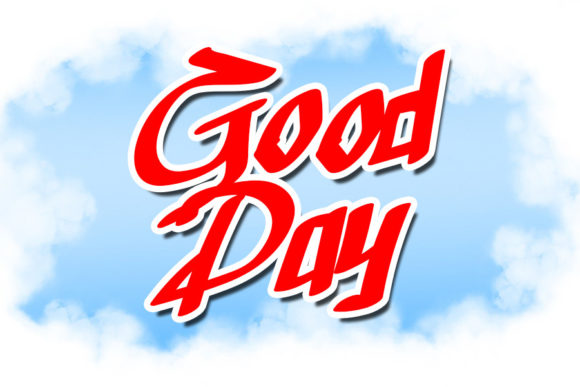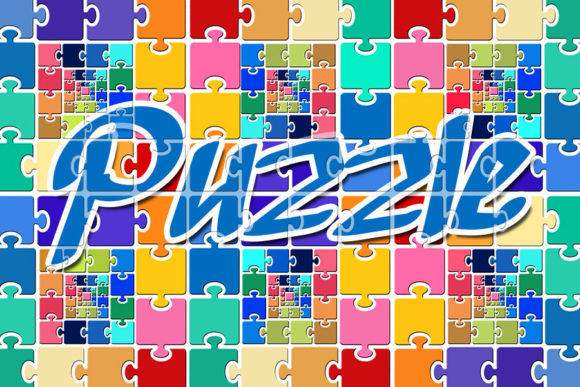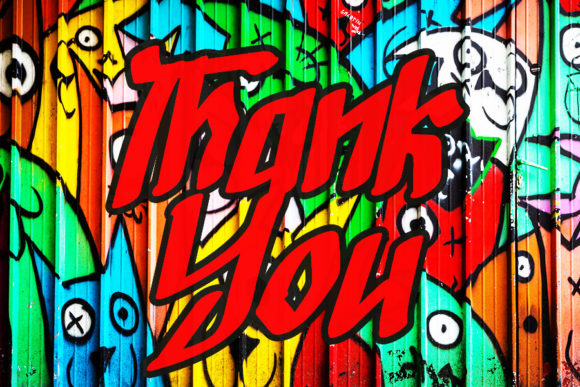
Discover the Power of One Love Font
Do you remember the moment when a design project came together perfectly? The colors, the layout, the text – everything just clicked. For many designers, this moment is a rare and precious thing. But what if you had a secret weapon to make this happen more often? Enter the One Love Font, a beautiful and natural display font that’s about to become your go-to design resource.
This free download is more than just a pretty face. With its high-quality design and transparent background, it’s the perfect addition to any creative project. Whether you’re working on a branding campaign, a website, or a social media post, the One Love Font has the potential to elevate your design and make it truly unforgettable.
- Unique, hand-drawn design with a playful and emotive feel, ideal for conveying messages of love and unity.
Honest Review: One Love Font
I recently came across the One Love Font, and I must say it’s been a great addition to my design resource library. This font is perfect for creative projects that require a touch of love and positivity. Its high quality and unique design make it stand out from the rest.
- ✨ High-quality design that’s perfect for creative projects.
- ✨ Transparent background, making it easy to use on any design.
- ⚠️ Limited font styles available, which may not be suitable for all design projects.
- ⚠️ May not be compatible with all font sizes, which can affect the overall design.
Overall, I’m impressed with the One Love Font. It’s a great resource for designers who want to add a touch of love and positivity to their creative projects. With a little creativity, I’m sure you can work around its limitations and get the most out of this fantastic font.
The One Love Font is perfect for wedding invitations, social media graphics, and event promotional materials. Its high-quality design and transparent background make it a versatile resource for various creative projects.